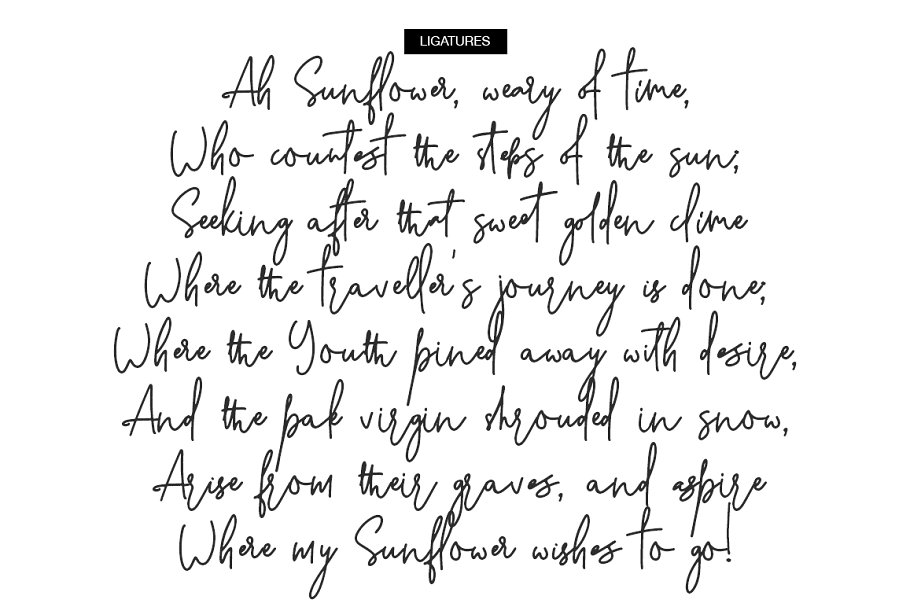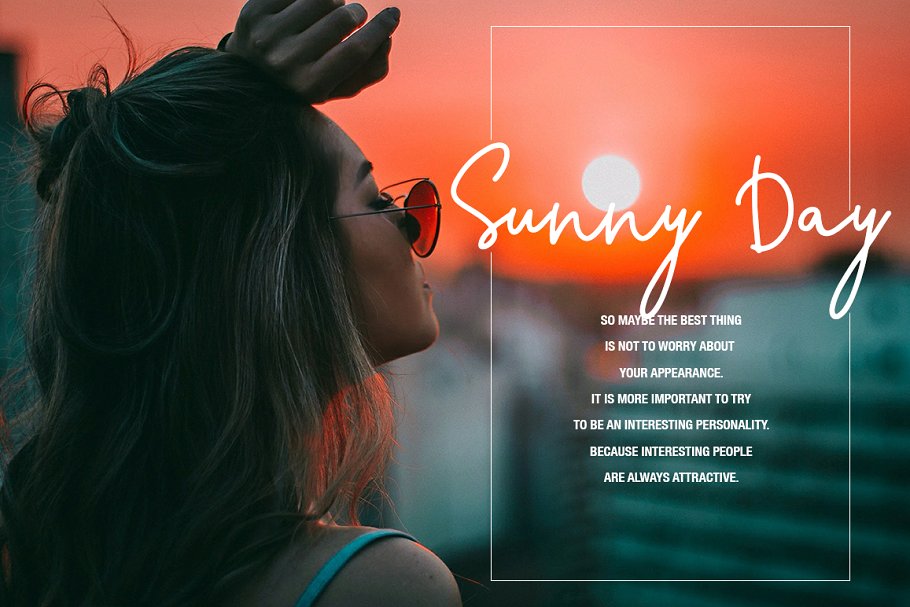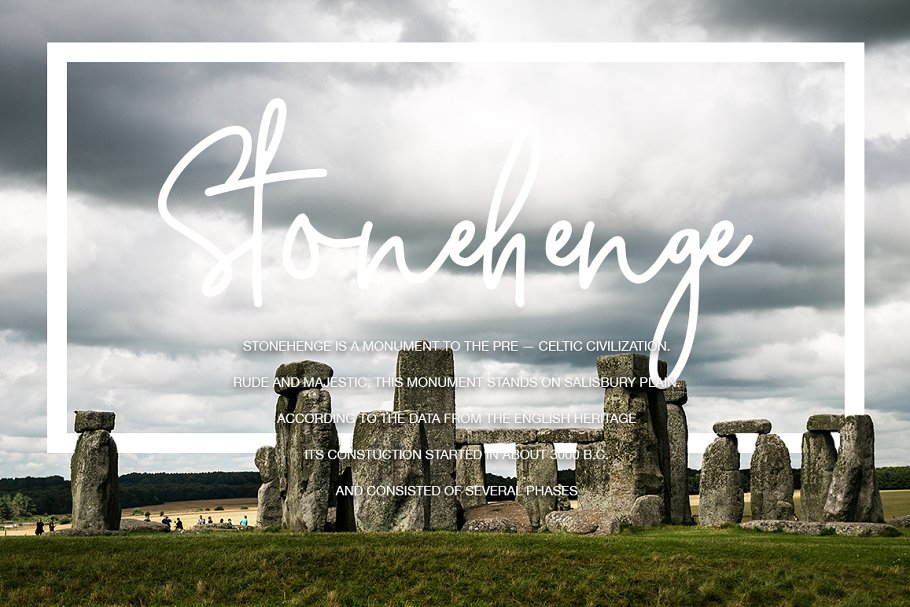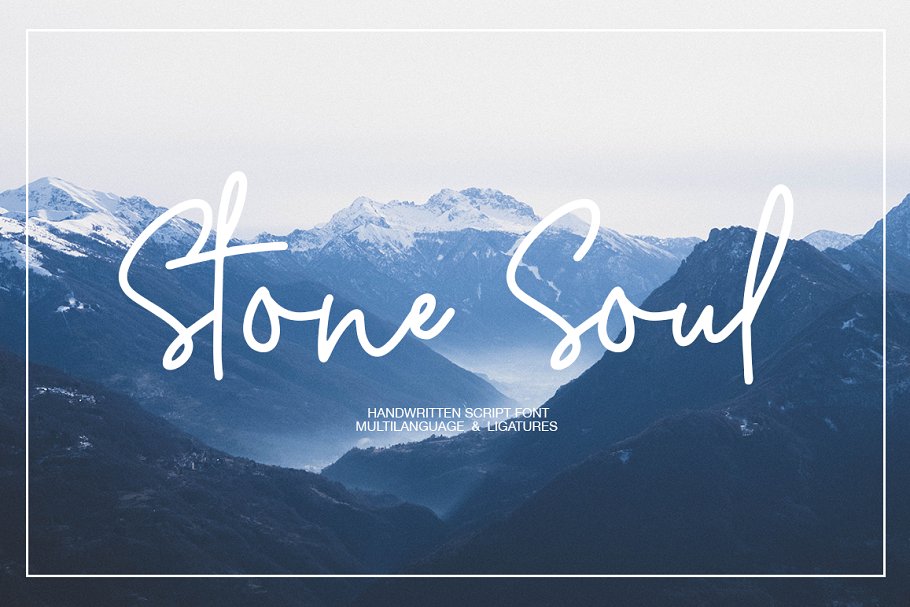
Stone Soul Handwritten Font
A new fresh handmade calligraphy font – This font is especially for you if you need to add tenderness to your project. Introducing Stone Soul Font. Very suitable for greeting cards, branding materials, business cards, quotes, posters, and more!This font are perfect for wedding postcard. Or you can create perfect and unique design of your logo, blog, stationery, marketing, magazines and more 🙂